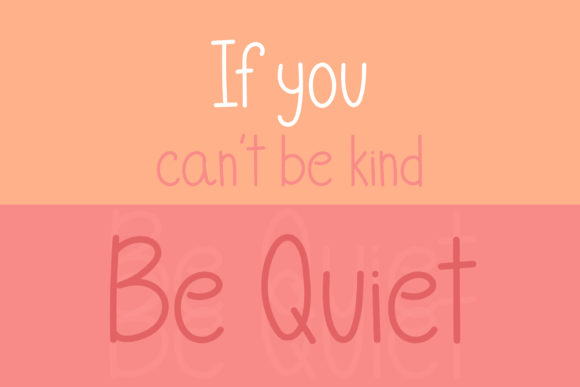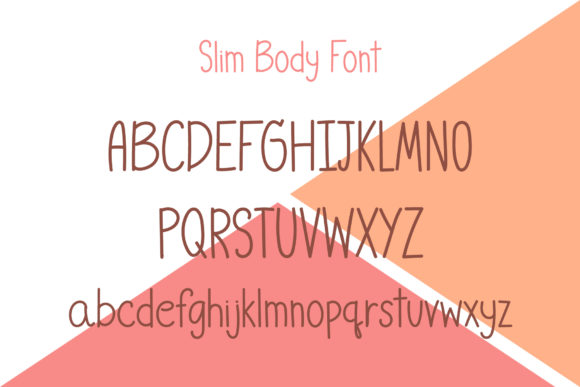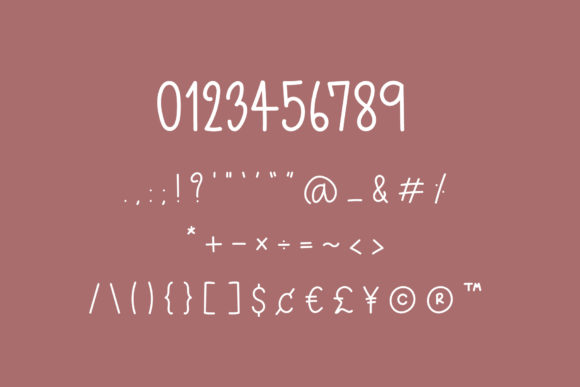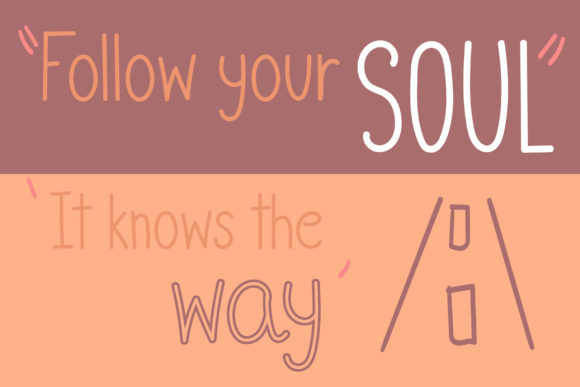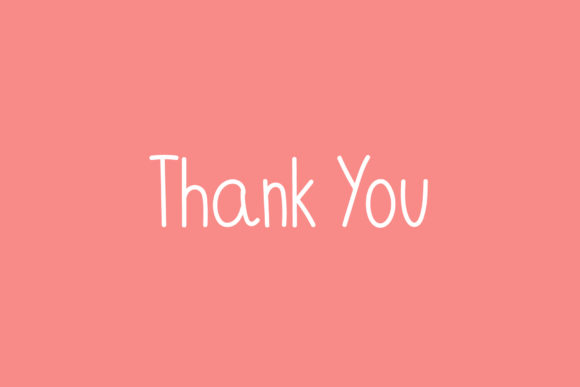
Introduction to Slim Body Font
Have you ever been working on a creative project, pouring your heart and soul into the design, only to feel like something is missing? The right font can make all the difference. For designers, finding the perfect font is like discovering a hidden gem – it can elevate your entire project and leave a lasting impression.
One such gem is the Slim Body Font, a lovely script font with a casual style that’s sure to capture the hearts of designers and users alike. Its playful charm makes it perfect for a wide range of creative projects, from social media graphics to blog posts and beyond.
Key Features of Slim Body Font
- High-quality design resource ideal for creative projects, offering a modern and sleek aesthetic.
- Features a transparent background, allowing for seamless integration with any design or image.
- Comes in multiple weights and styles, providing versatility for various design applications.
- Unique characteristic: slim body design with precise letterforms, perfect for creating a clean and minimalist visual identity.
Honest Review: Slim Body Font
As a designer, I’m always on the lookout for high-quality design resources to elevate my creative projects. Recently, I stumbled upon the Slim Body Font, and I’m excited to share my honest review.
What works well: ✨ I love the sleek and modern feel of this font. It’s perfect for minimalist designs, and the transparent background makes it easy to customize. The font is highly legible, even at smaller font sizes.
- Perfect for minimalist designs
- Legible at smaller font sizes
Any limitations: ⚠️ While the Slim Body Font is excellent, I do wish it had a few more font weights to offer more flexibility in my designs. Additionally, some users may find the font a bit too minimalist for certain projects.
Tips for Getting the Most Out of Slim Body Font
To get the most out of the Slim Body Font, use it in combination with a high-quality image background. This will create a stunning design that’s perfect for creative projects. You can also experiment with different font sizes and colors to achieve the desired look.
The Slim Body Font is ideal for various creative projects, including logos, business cards, and brochures. It’s also perfect for adding a touch of sophistication to your social media graphics and website designs.